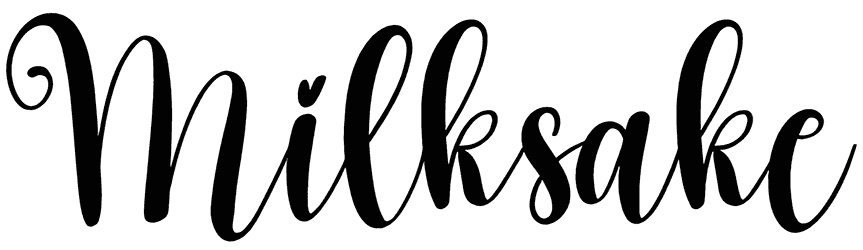
Milksake Font
If you think your design will be more ravishing with a unique cursive font, this offer would be nice for you. The elegant letters of this handwritten font, with their natural vibe, are going to make your words more impressive and engaging. Set the Milksake font on your new creative layouts like an easter flyer and make them sweet.